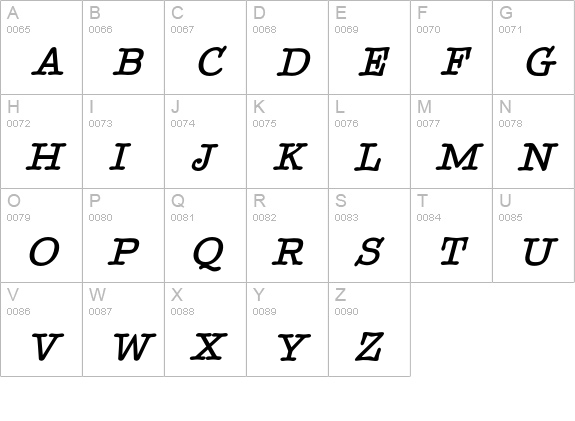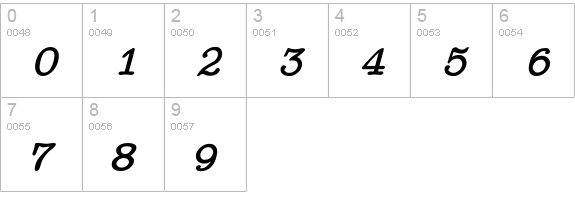
TypenradBoldItalic Font Details
Introducing TypenradBoldItalic, a stunning and versatile font that effortlessly combines the elegance of boldness with the playful flair of italics. This font is a harmonious blend of strong and slanted shapes, creating a unique and captivating visual aesthetic. TypenradBoldItalic is the perfect choice for those seeking a font that exudes confidence and sophistication. Whether you're designing a logo, creating eye-catching headlines, or crafting a memorable branding campaign, this font is sure to make a bold statement. With its bold strokes and subtle slant, TypenradBoldItalic commands attention and adds a touch of flair to any project. It is easily legible, making it suitable for both print and digital mediums. The versatility of this font allows it to be used across a wide range of design applications, from graphic design to web design and beyond. What's even better is that TypenradBoldItalic is freely available to download at FontsMarket.com. This means that you can enhance your design work without any additional cost. It's a fantastic opportunity to acquire a high-quality font that will truly elevate your designs. So why wait? Download TypenradBoldItalic today and unlock a world of creative possibilities. It's time to make a statement and unleash your creativity with this remarkable font.